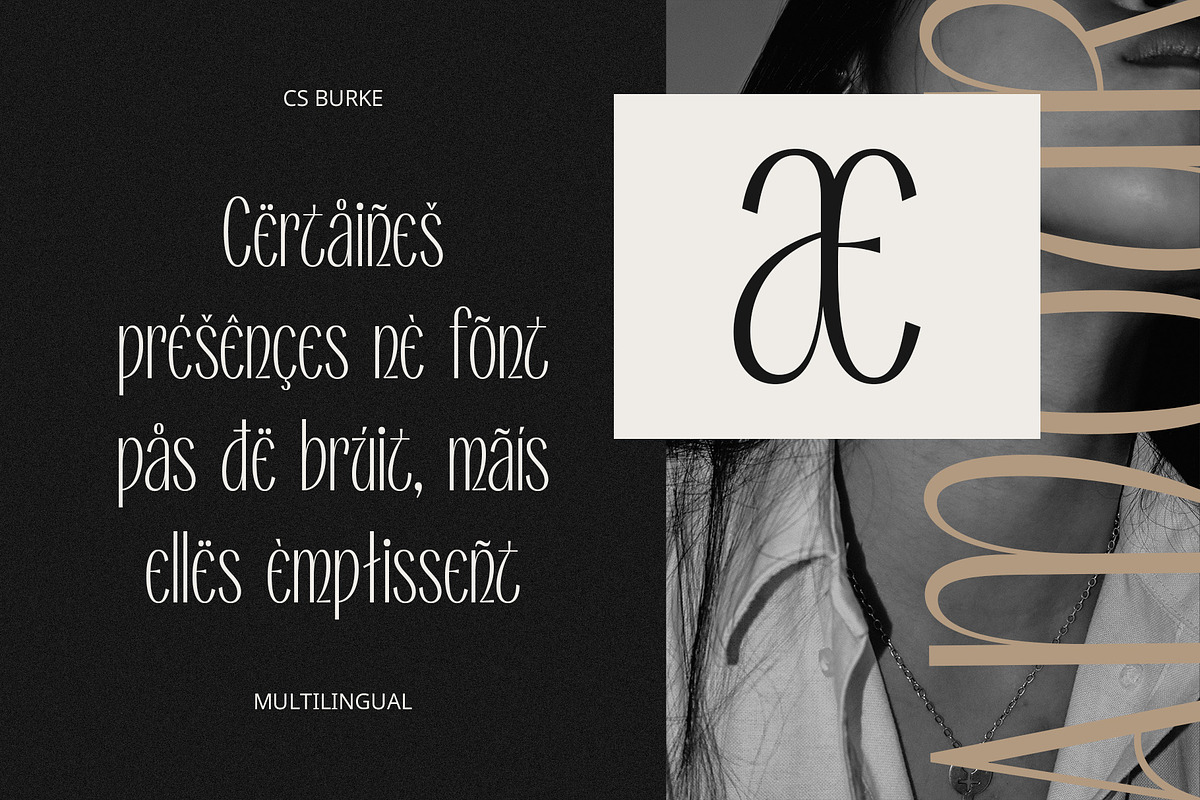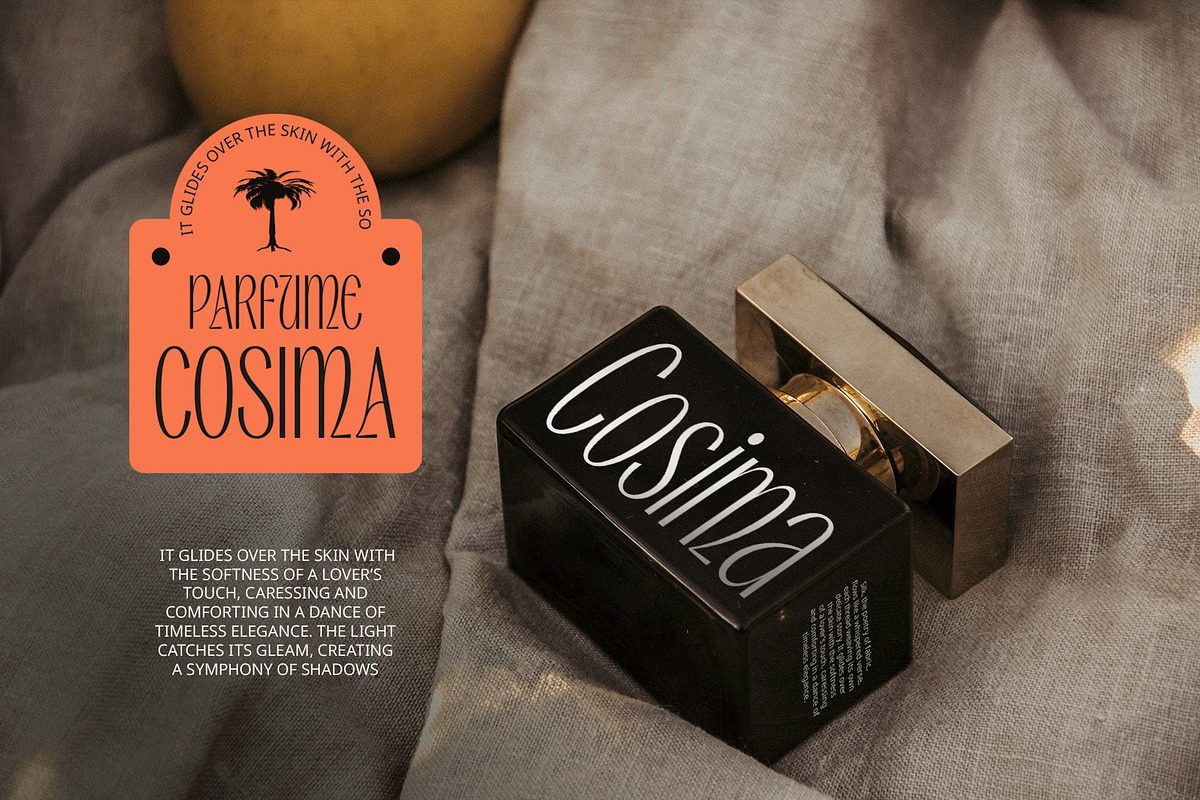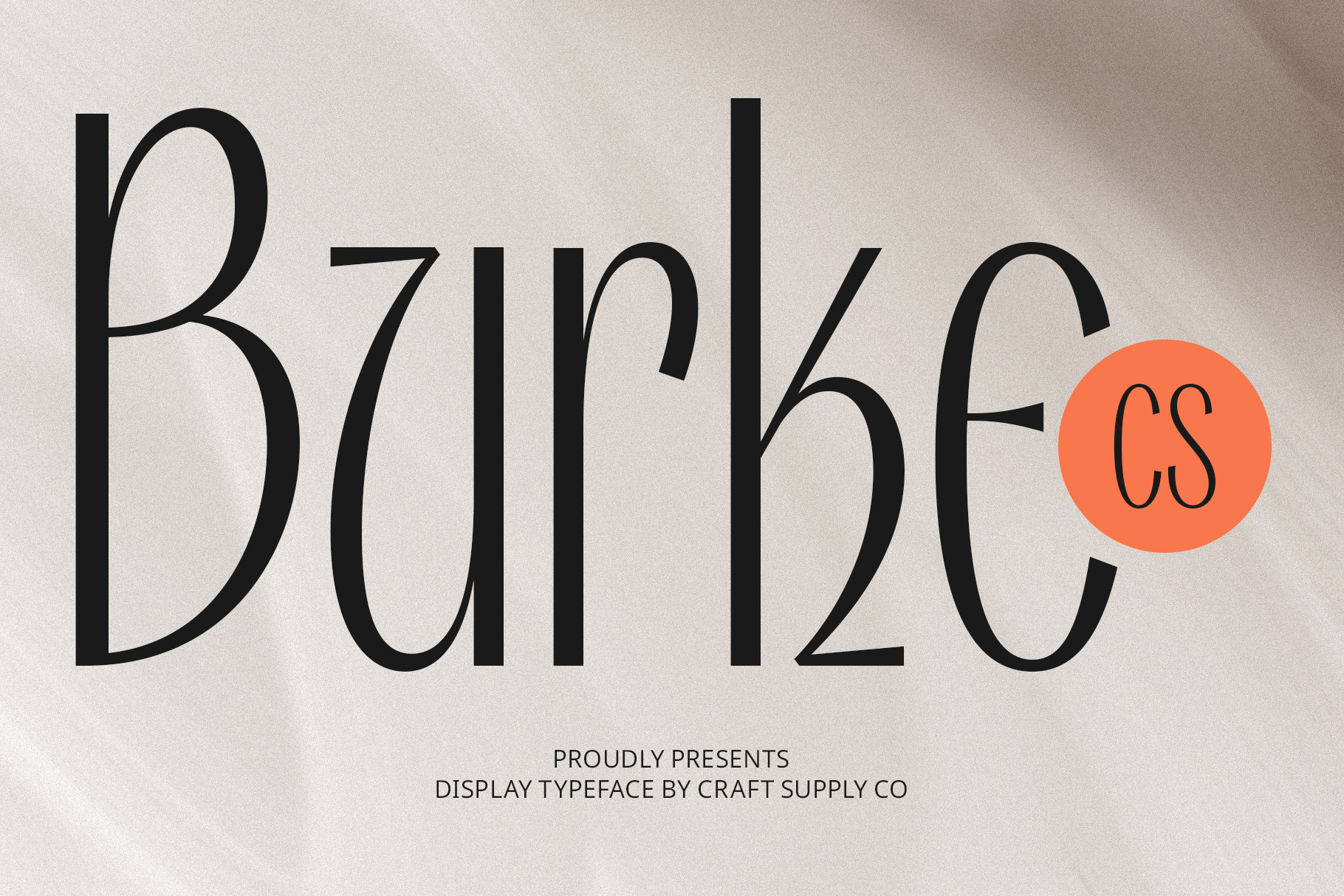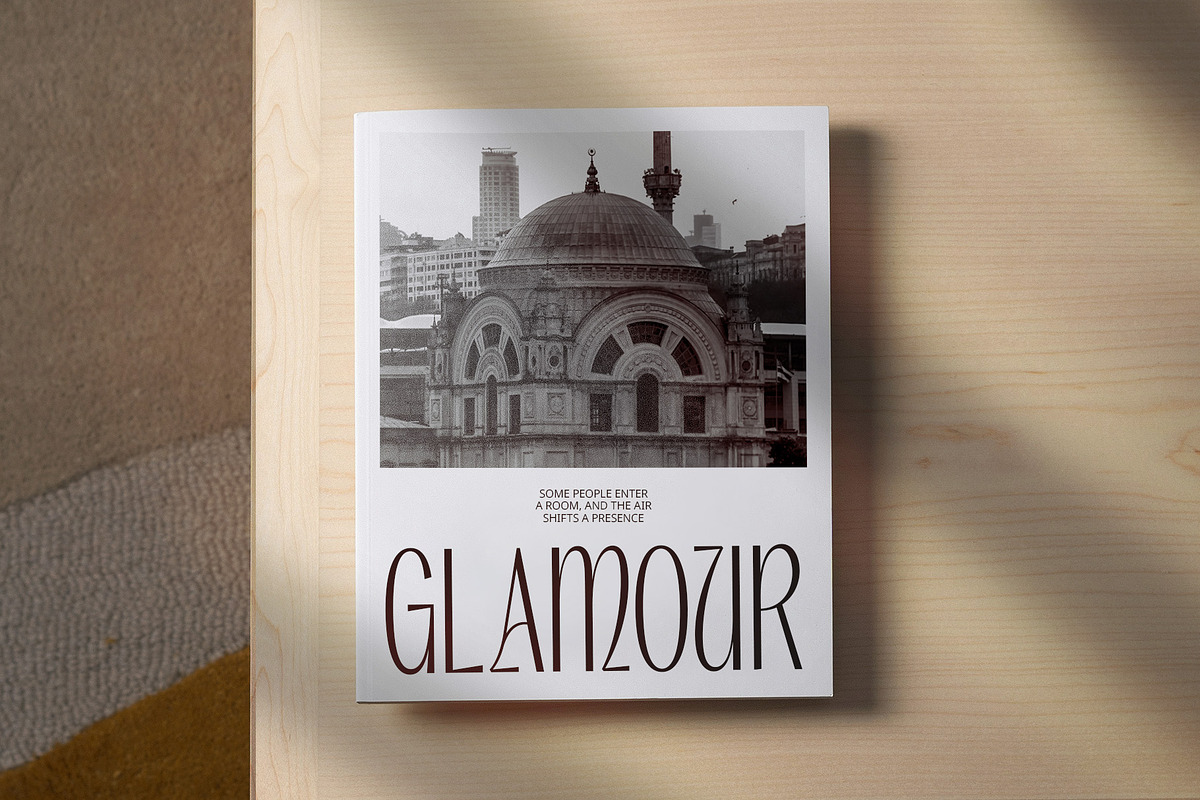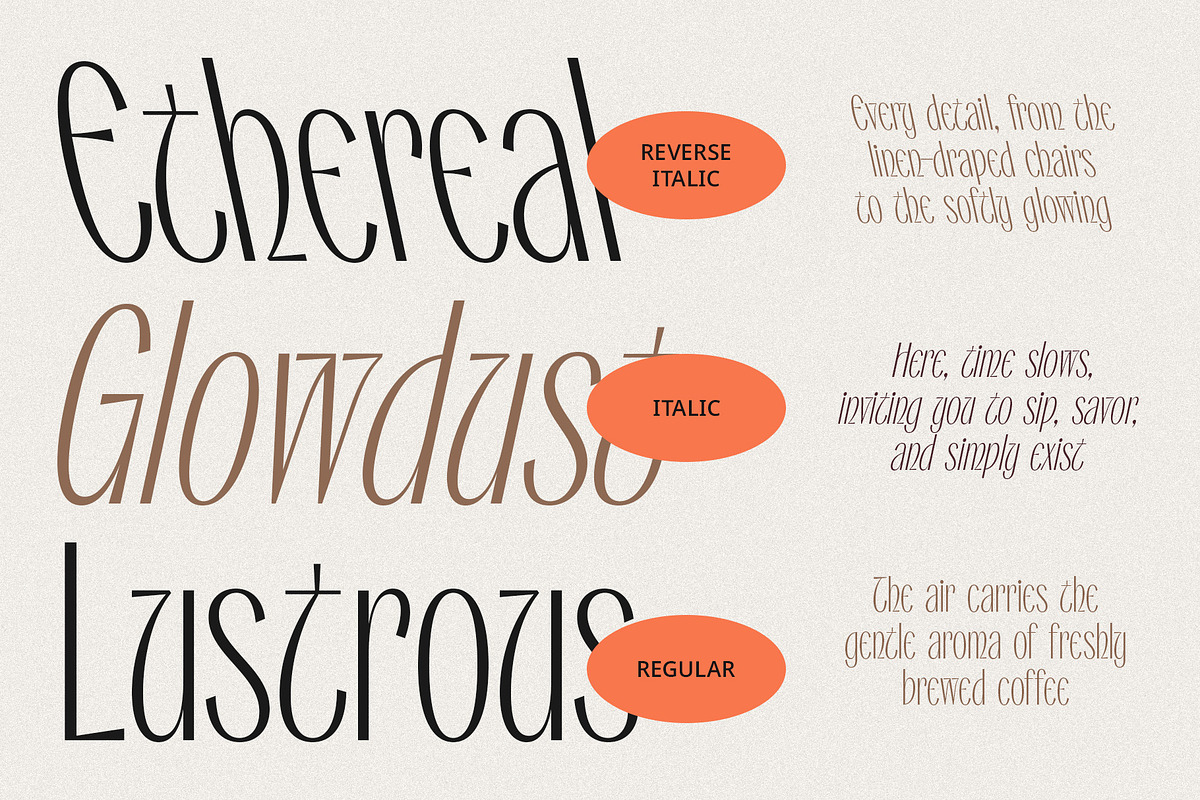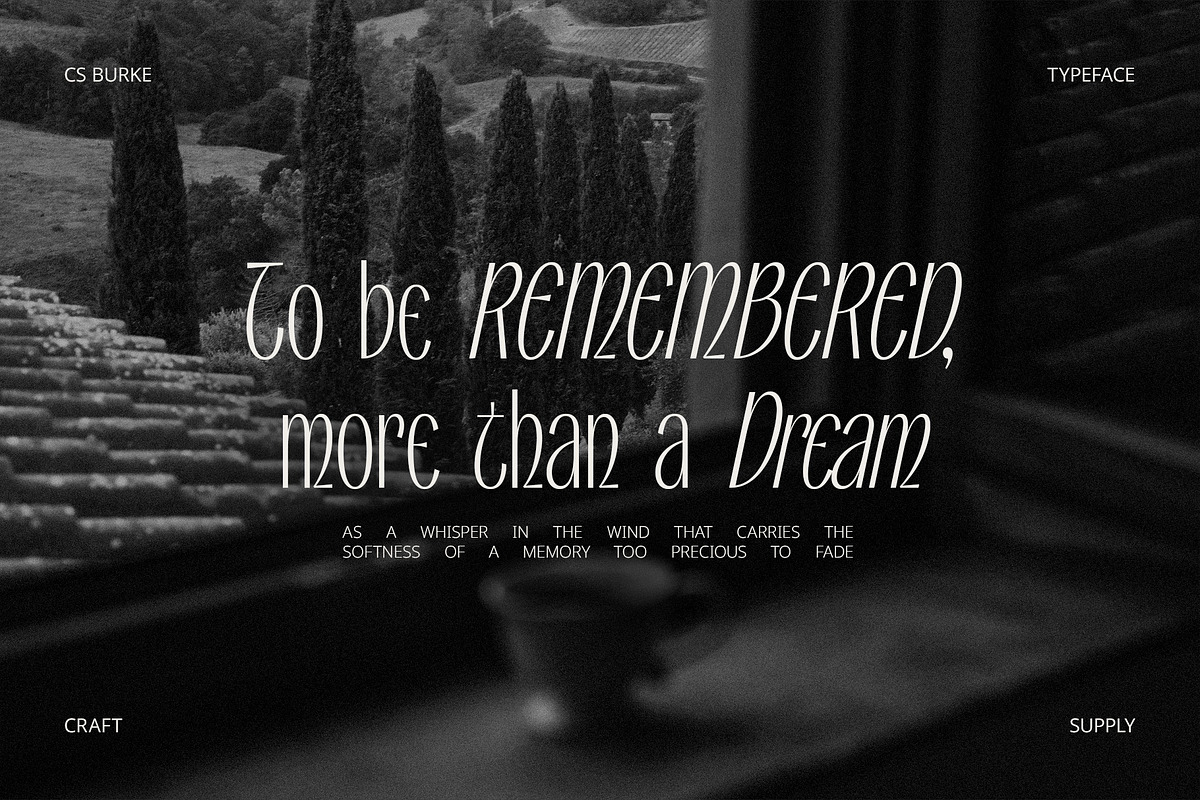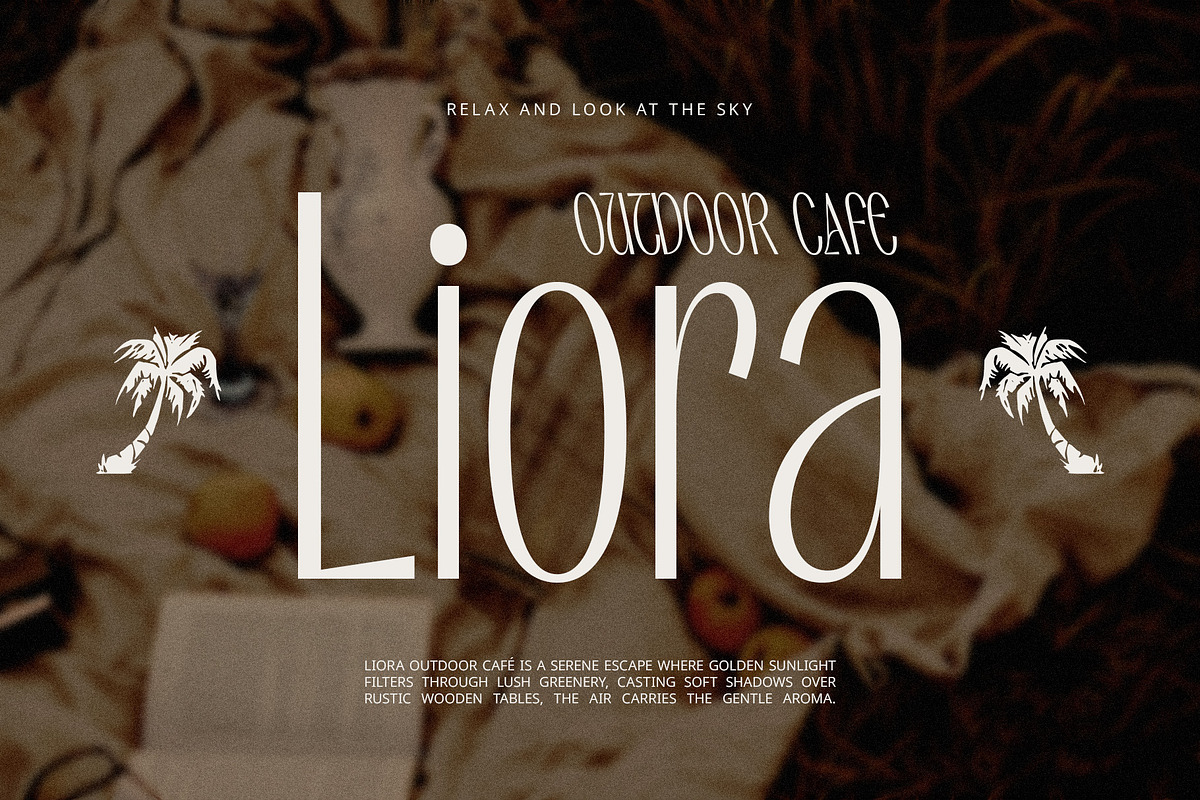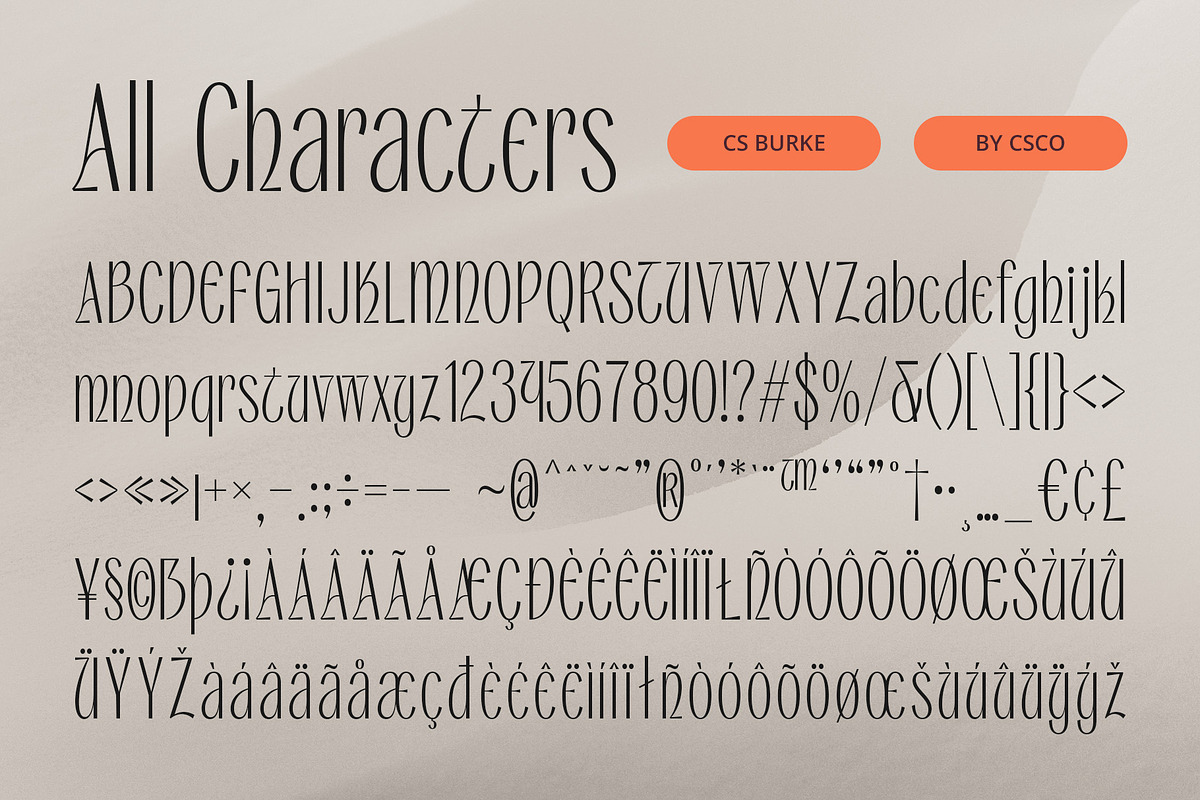
CS Burke – Classic Font
CS Burke – Classic Font: Timeless Elegance with a Modern Touch
Modern Sans-Serif with a Classic Luxury Feel CS Burke is a modern sans-serif display font that blends sleek minimalism with classic refinement, creating an air of sophistication and professionalism. Its tall, thin proportions and clean, smooth lines exude a sense of elegance and exclusivity, making it perfect for luxury branding and high-end design projects.
A Balance of Simplicity and Sophistication Designed with precise geometry and delicate proportions, CS Burke offers a polished and understated aesthetic that complements premium editorial layouts, fashion campaigns, and upscale packaging. The font’s subtle opulence and contemporary style make it a standout choice for designers seeking a refined yet modern visual identity.
Ideal for High-End Branding and Editorials CS Burke is versatile yet distinct, making it ideal for luxury brand identities, exclusive product packaging, magazine headlines, and elegant web design. Whether used for logos, invitations, or advertising, its minimalist yet rich character ensures a timeless and prestigious appeal.
Elevate Your Design with Sophisticated Simplicity With its graceful curves and flawless execution, CS Burke is the epitome of modern classicism. It offers a harmonious blend of tradition and innovation, making it a go-to font for those who appreciate style, class, and effortless beauty.
- CS Burke Regular
- CS Burke Italic
- CS Burke Reverse Italic